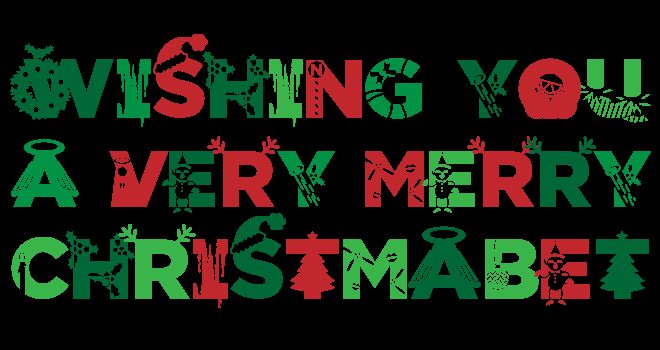
Christmabet by Catillest is a free decorative Christmas display font built around broad, solid capitals filled with festive illustrations. Ornaments, winter figures, trees, stockings, and candy-cane stripes turn each letter into a small seasonal scene. The silhouettes stay sturdy despite the busy interiors.
Its strongest role is in holiday event posters, where the alphabet can supply both the wording and much of the artwork through its changing motifs. Gift packaging, greeting cards, and children's seasonal publishing can use the same picture-letter approach to connect text directly with Christmas imagery.